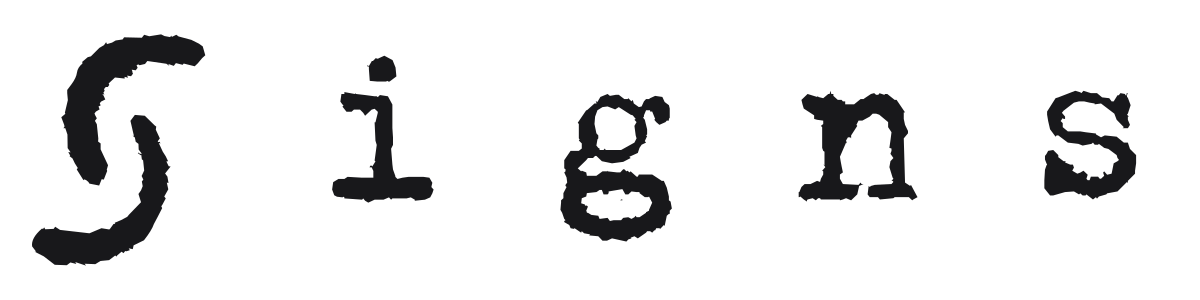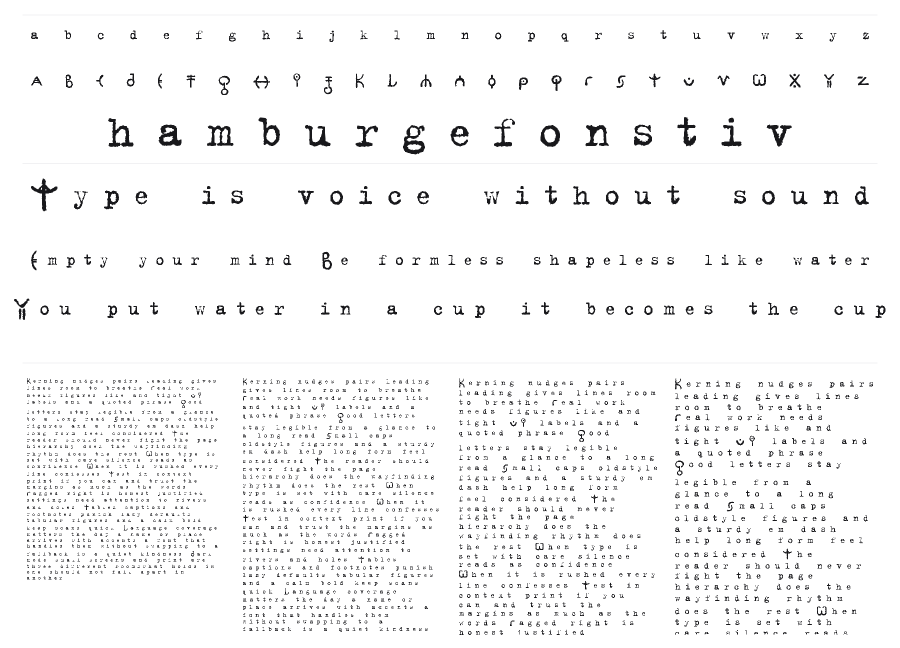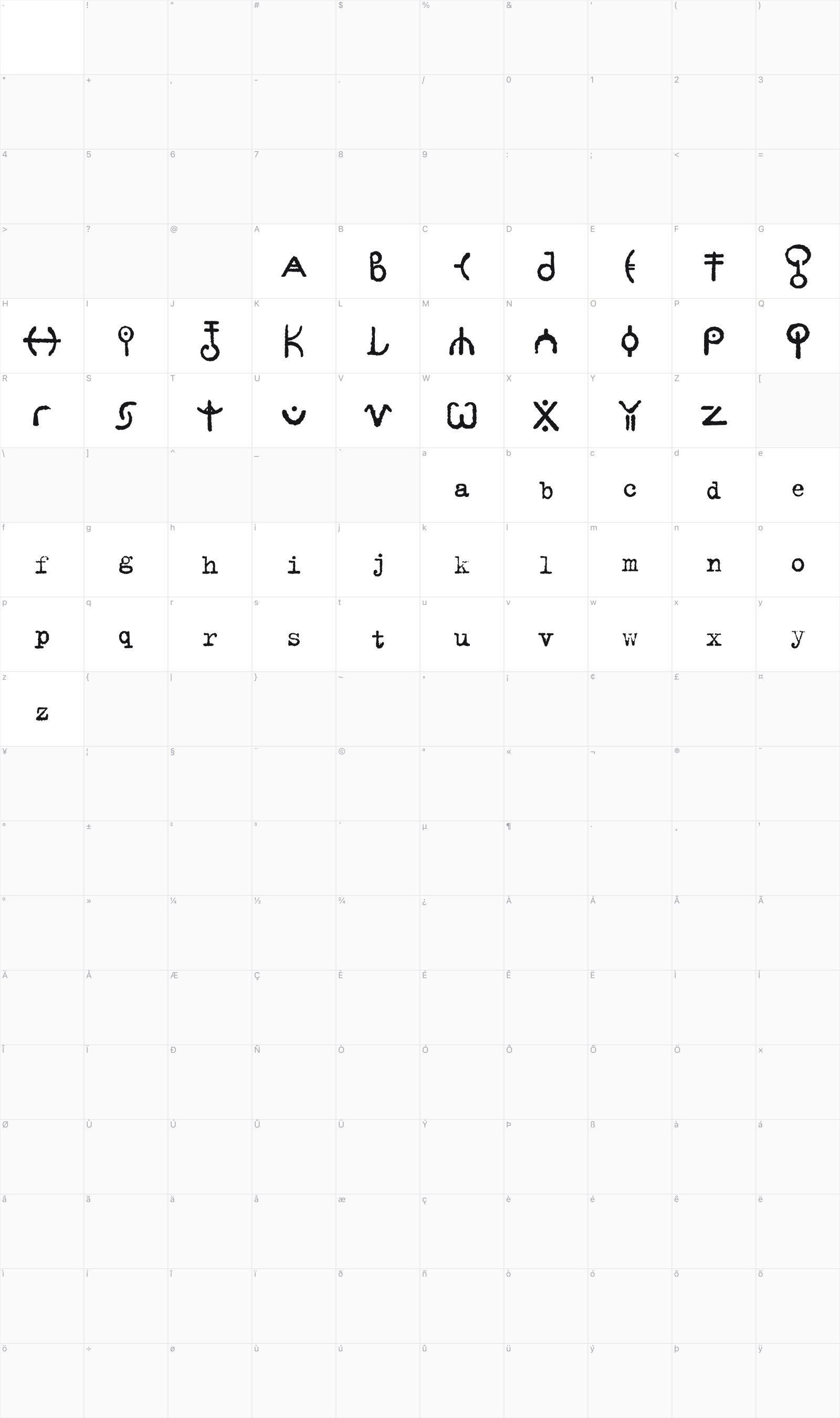
Signs
Signs is a typewriter-style font by Jens R. Ziehn with the look of text struck through an aging mechanical ribbon. The uneven ink coverage and slightly irregular letterforms give it a genuinely worn, archival feel rather than a polished digital imitation. It works well wherever a raw, documentary authenticity is the point.